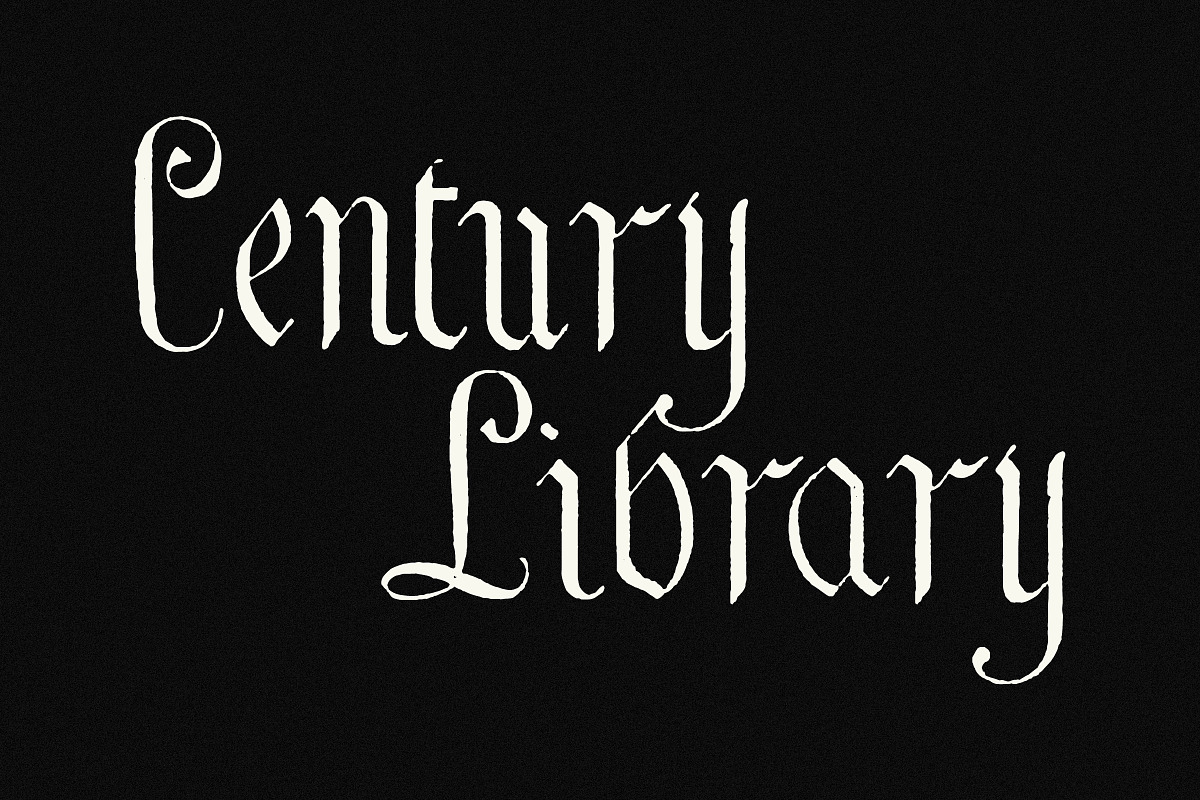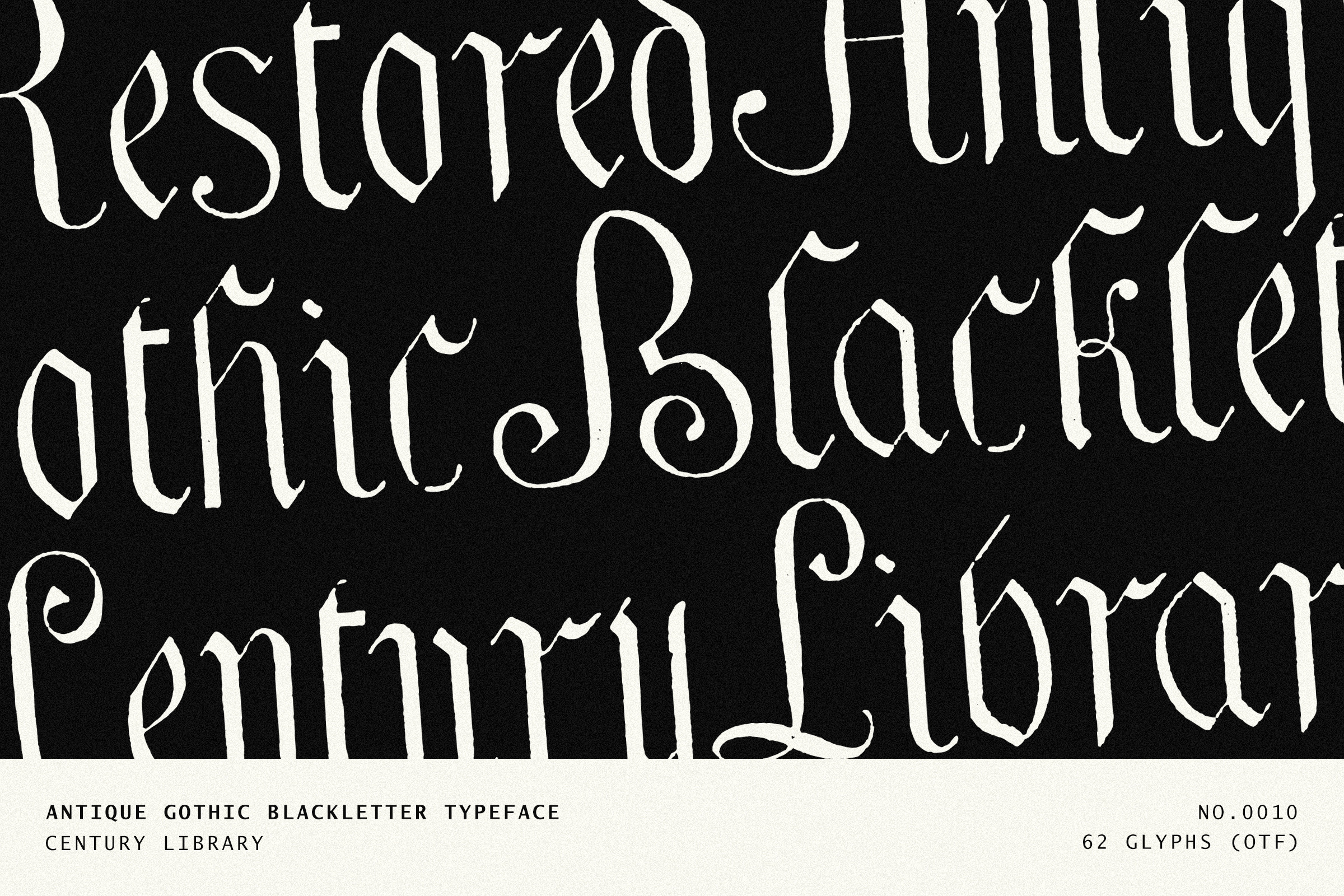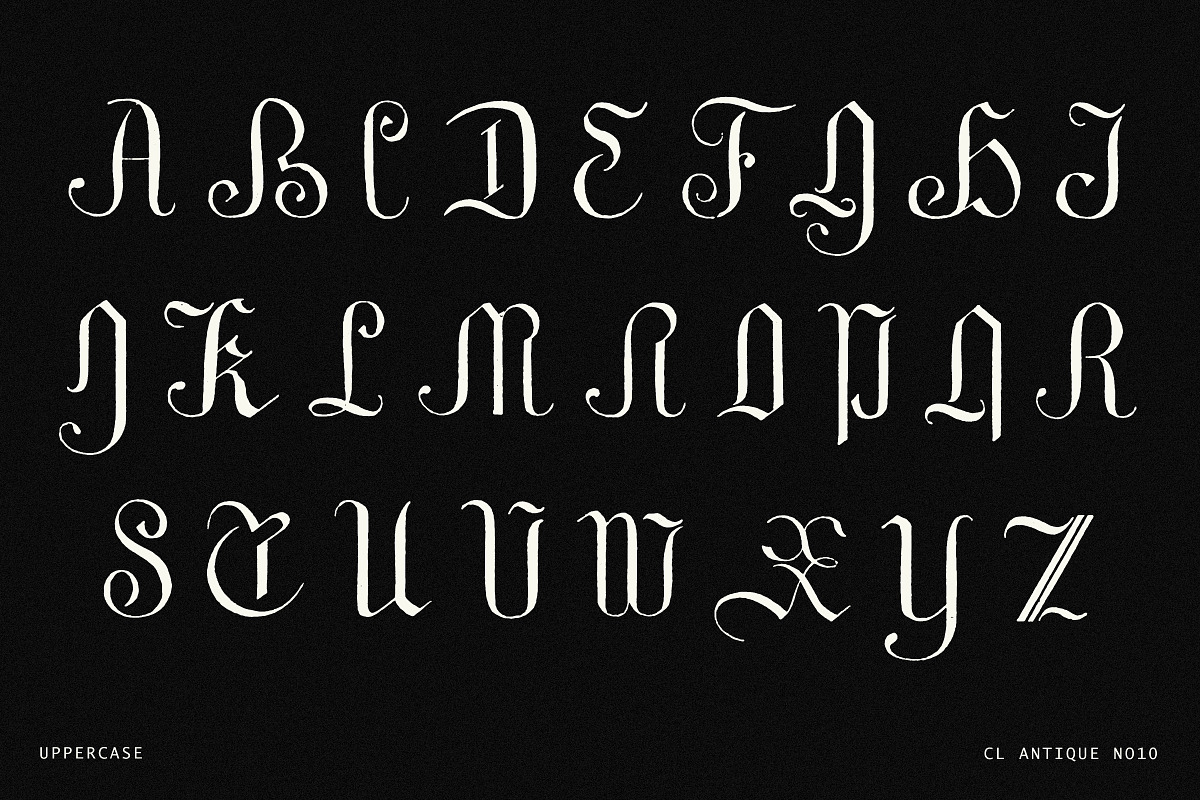
Gothic Blackletter Calligraphy Font
Say hello to CL Antique No.10 – a restored gothic blackletter font packed with vintage charm, carefully revived from original 19th-century sources.
Part of the Century Library collection, this font was meticulously scanned, cleaned, and transformed into a working font – capturing the sharp flourishes, textured lines, and slightly imperfect character that make true antique blackletter so compelling.
This isn’t a modern reinterpretation. Every letter stays true to its roots, keeping all the organic quirks and uneven edges you’d expect from hand-inked gothic type. Uppercase, lowercase, and numbers are included, all restored from the original historic materials.
Perfect for book covers, posters, logos, packaging, and any design that calls for an authentic old-world touch with a bit of handmade grit.